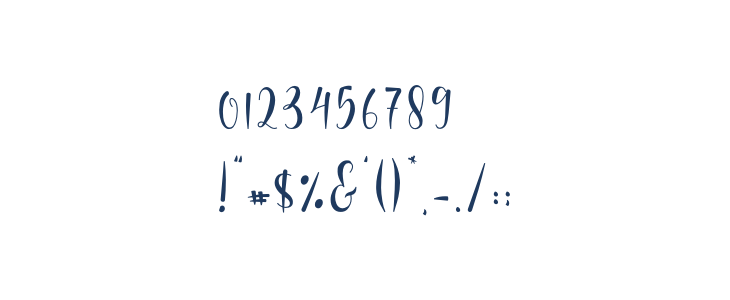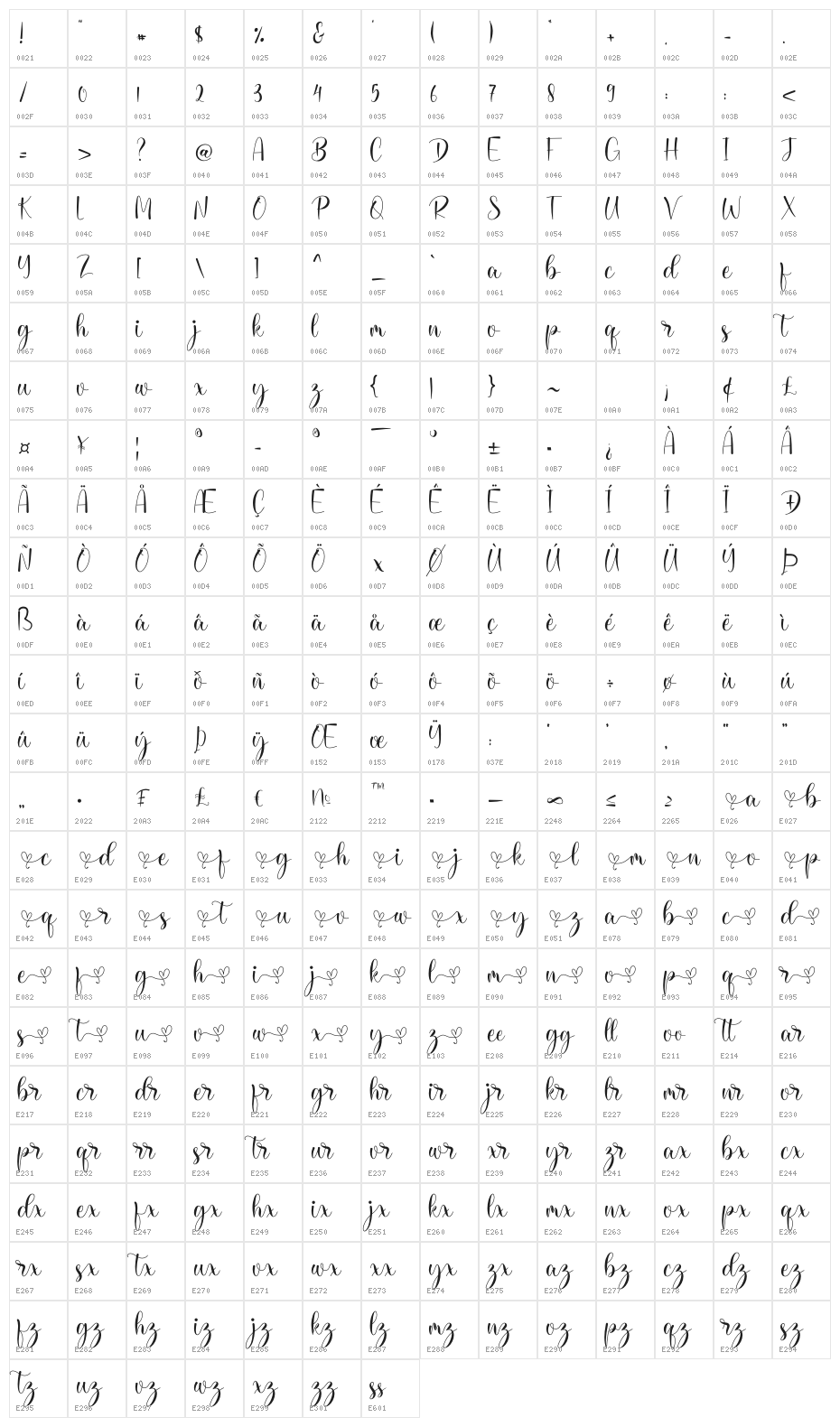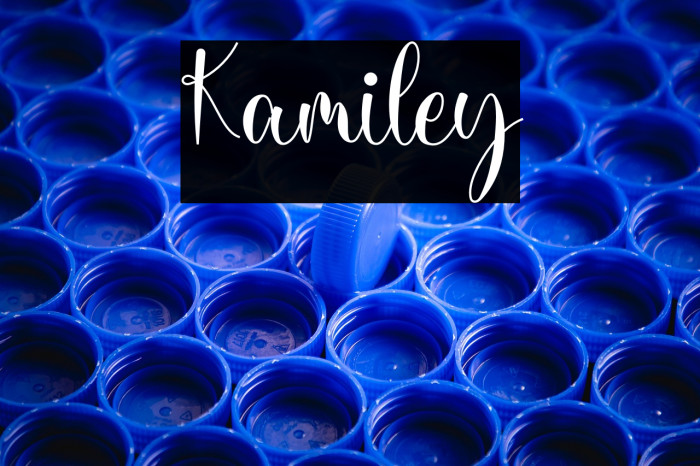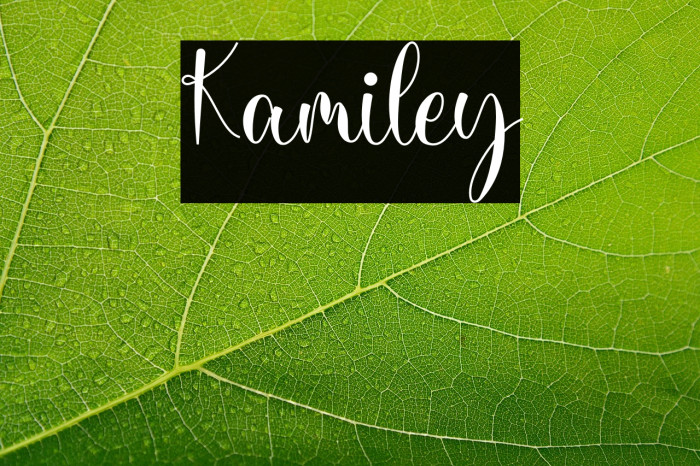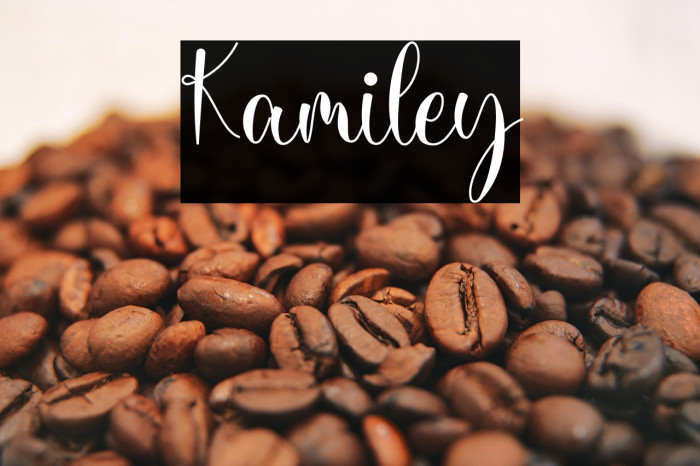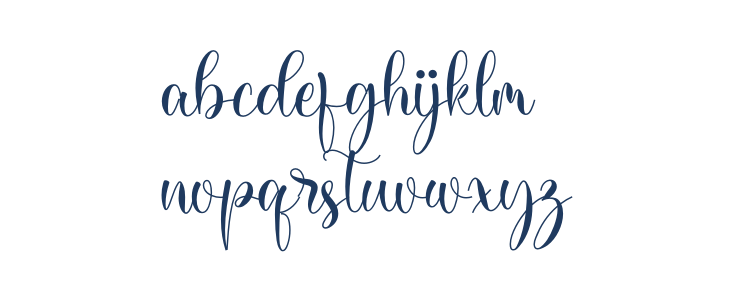
Kamiley Font
Kamiley Description
This font features a playful and elegant script style, characterized by its flowing, cursive letters that exude a sense of charm and sophistication. The uppercase letters are tall and graceful, with sweeping curves and loops that add a touch of whimsy. The lowercase letters maintain a consistent flow, with smooth connections between each character, enhancing readability while retaining an artistic flair. The numerals are stylish and complement the overall design, making them suitable for a variety of uses. Special characters are thoughtfully designed to match the font's aesthetic, ensuring a cohesive look across all text elements.
| Use Case | Logos, Headlines, Invitations |
| Proposed Projects | Ideal for wedding invitations, greeting cards, branding, and social media graphics. |